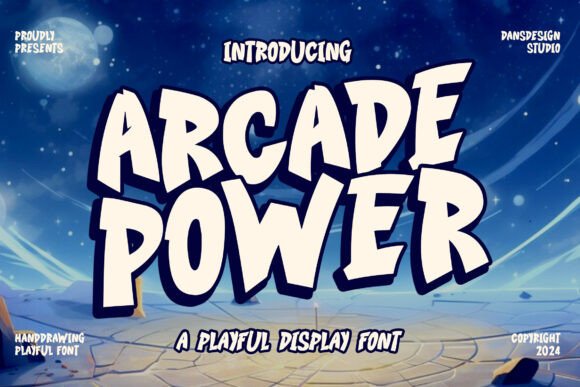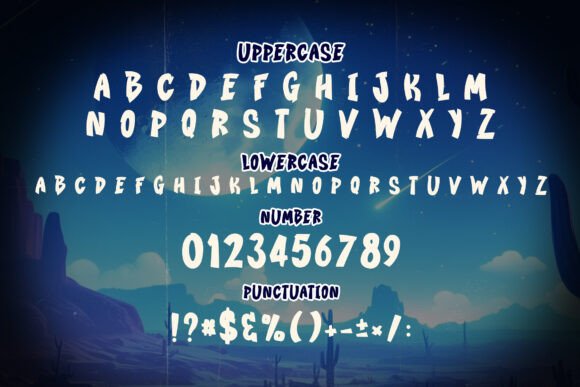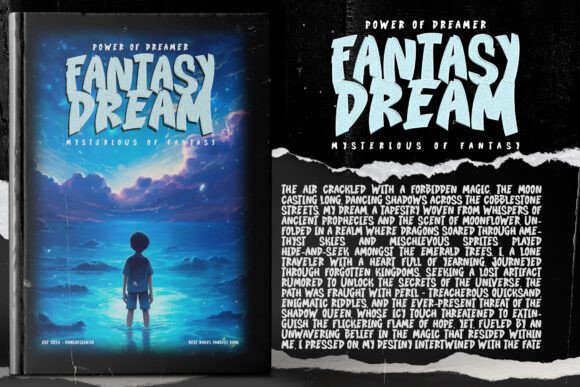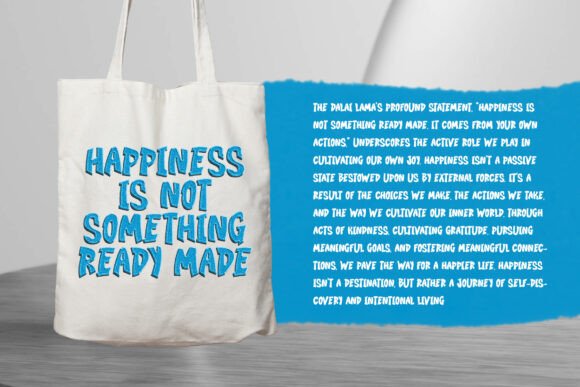
Arcade Power Font: Bold Title Font for Retro Game Design & Playful Branding
About the Arcade Power Font
Let us introduce you to Arcade Power Font, where timeless design meets modern craftsmanship. Arcade Power is a bold and energetic display font that captures the spirit of retro gaming and animated excitement. With chunky, hand-drawn letterforms and a comic-style punch, it’s perfect for game titles, youth branding, playful packaging, and nostalgic throwbacks. This font adds instant fun and drama to any design!
Its bold, playful nature makes it ideal for headlines, posters, and short impactful statements in branding materials or packaging. However, its chunky forms and large x-height make it less suitable for body text or UI elements requiring high readability. Avoid using it for long paragraphs or in small sizes.
Consider pairing Arcade Power with a clean sans-serif like Open Sans for body copy or a geometric sans-serif like Futura for a more modern contrast. For a softer touch, a rounded sans-serif could work well. Avoid pairing it with overly ornate scripts which would clash with its playful energy.
Arcade Power’s core personality is undeniably bold and fun, best suited for brands targeting a younger demographic or projects needing a retro, energetic feel. Think video game studios, comic book publishers, or children’s products.
Arcade Power Font Usage Examples
Arcade Power Font Example